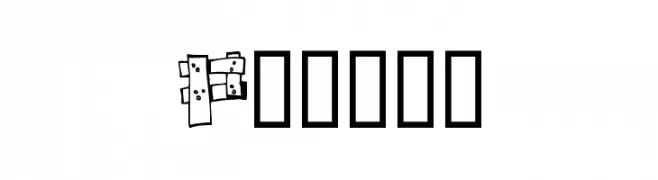
An elegant, decorative script font with intricate swirls and loops.
A bold, slanted font with sharp angles and a futuristic style.
A bold, slanted font with a futuristic and dynamic design.
A bold, distressed font with jagged edges and a dynamic slant.
A bold, slanted font with sharp, angular edges and an energetic style.
A decorative font with letters entwined in plant and flower motifs.
A geometric, slanted italic font with thin lines and angular design.
A slanted, angular font with a modern, geometric style.
A slanted, italicized font with angular, bold strokes and a futuristic style.
A slanted, italicized font with sharp angles and a modern, geometric style.
A geometric, slanted italic font with sharp, angular lines and a modern aesthetic.
A slanted, geometric font with angular lines and a futuristic style.
A futuristic, angular font with a dynamic slant and geometric design.
A bold, futuristic 3D font with slanted, geometric characters and a dynamic style.
A bold, slanted font with angular, futuristic characters.
), with Reserved Font Name Amiri. ) A bold, slanted serif font with a classic and elegant style.
), with Reserved Font Name Amiri. ) A classic, slanted serif font with elegant, italicized characters and moderate contrast.
A bold, decorative font with an industrial, plank-like design.
A bold, industrial font with a mechanical, riveted design and a slight slant.
A bold, industrial italic font with plank-like characters and rivet details.
A bold, 3D italic font with a plank-like texture and playful, rugged aesthetic.
A bold, 3D block font with a textured, plank-like design.
A bold, industrial font with a staggered, plank-like design and decorative cut-out details.
A bold, angular, and slanted font with a futuristic design.
A classic serif font with elegant strokes and balanced proportions.
A classic serif font with elegant curves and balanced strokes, ideal for formal use.
A playful, hand-drawn font resembling wooden planks, ideal for creative projects.
An elegant, flowing script with intricate, decorative calligraphy.
A cursive, italic font with medium contrast and a calligraphic style.
A bold, italicized calligraphic font with flowing, cursive strokes.
A futuristic, slanted font with bold, condensed characters and medium contrast.
A bold, geometric, and futuristic font with a slanted design.
A bold, geometric outline font with an italic slant, offering a modern and dynamic appearance.